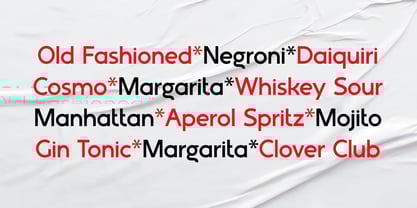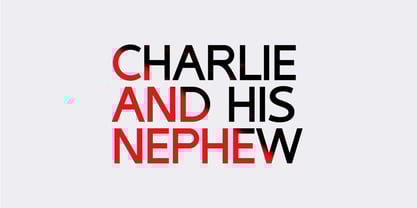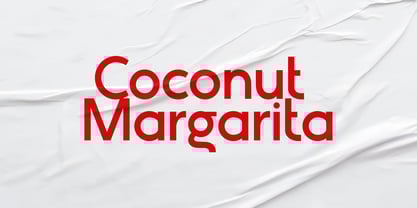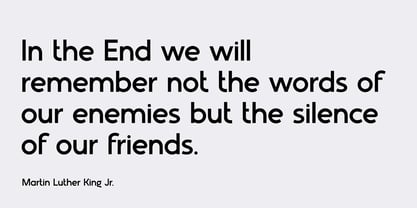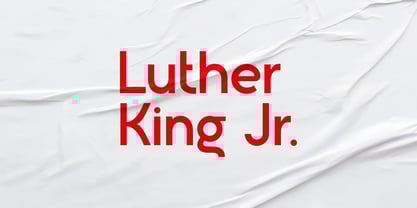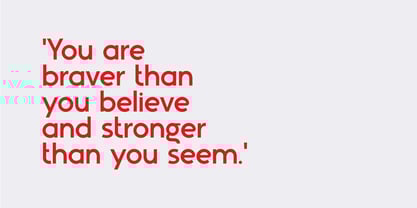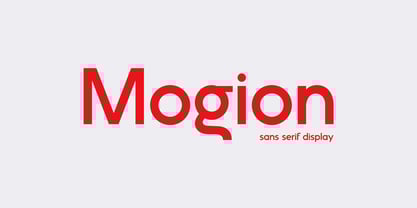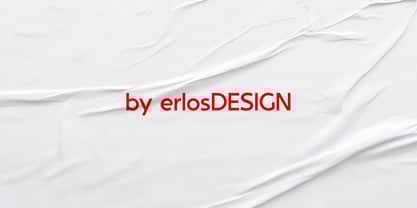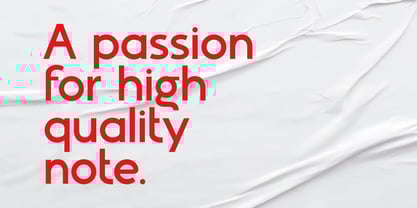
Mogion
by ErlosDesign
The Mogion Font Family was designed by Erlangga Suherman and published by ErlosDesign. Mogion contains 1 styles. More about this family
Motion is a modern sans-serif display typeface with a distinct character. Designed with a clean and minimalistic structure, Mogion features subtle, creative touches that make it stand out. This font offers a balance between geometric precision and expressive charm, making it perfect for branding, headlines, posters, packaging, and editorial design.
With its versatile nature, Motion works beautifully for both digital and print purposes. Its confident yet friendly personality ensures readability while giving your projects a unique visual identity.
Designers: Erlangga Suherman
Foundry: ErlosDesign